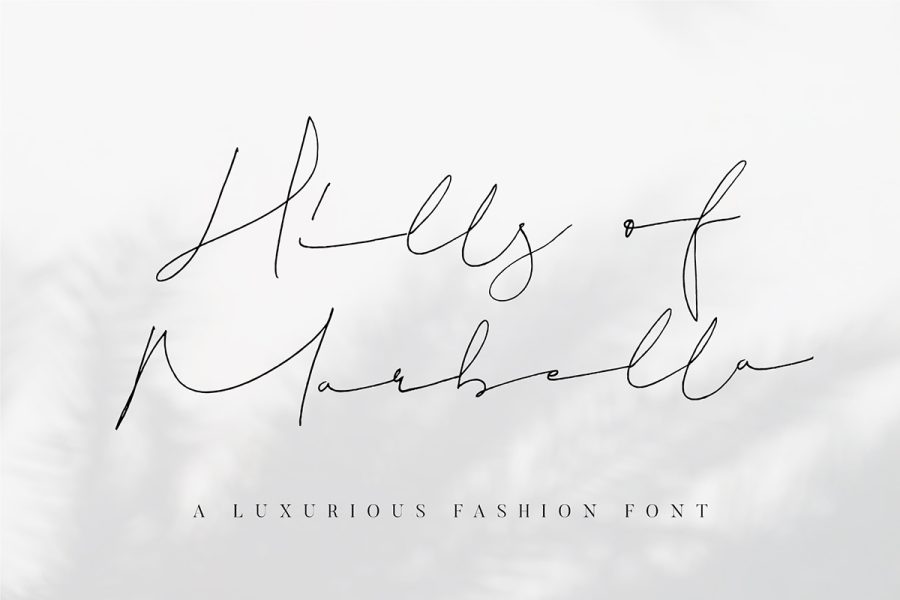
Free Hills of Marbella Handwritten Script Font is a modern hand-lettering font. It can be useful for you for branding, advertising design, T-shirts, and more. Also, Free Hills of Marbella Handwritten Script Font is a personal license font, you can only use it on your own project. Anyway, This free font has 2 styles that help you can decide to use it.
Free Hills Of Marbella Handwritten Script Font
Free Hills of Marbella Handwritten Script Font is a modern hand-lettering font. It can be useful for you for branding, advertising design, T-shirts, and more. Also, Free Hills of Marbella Handwritten Script Font is a personal license font, you can only use it on your own project. Anyway, This free font has 2 styles that help you can decide to use it.